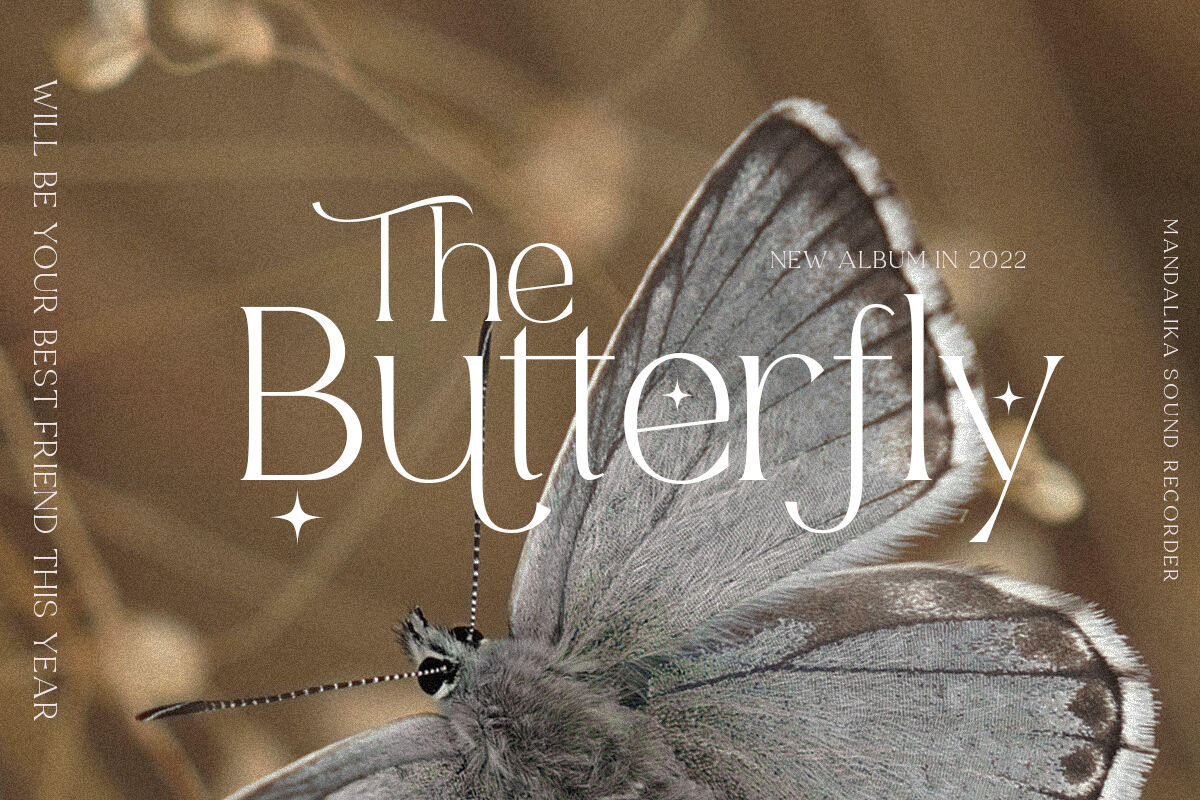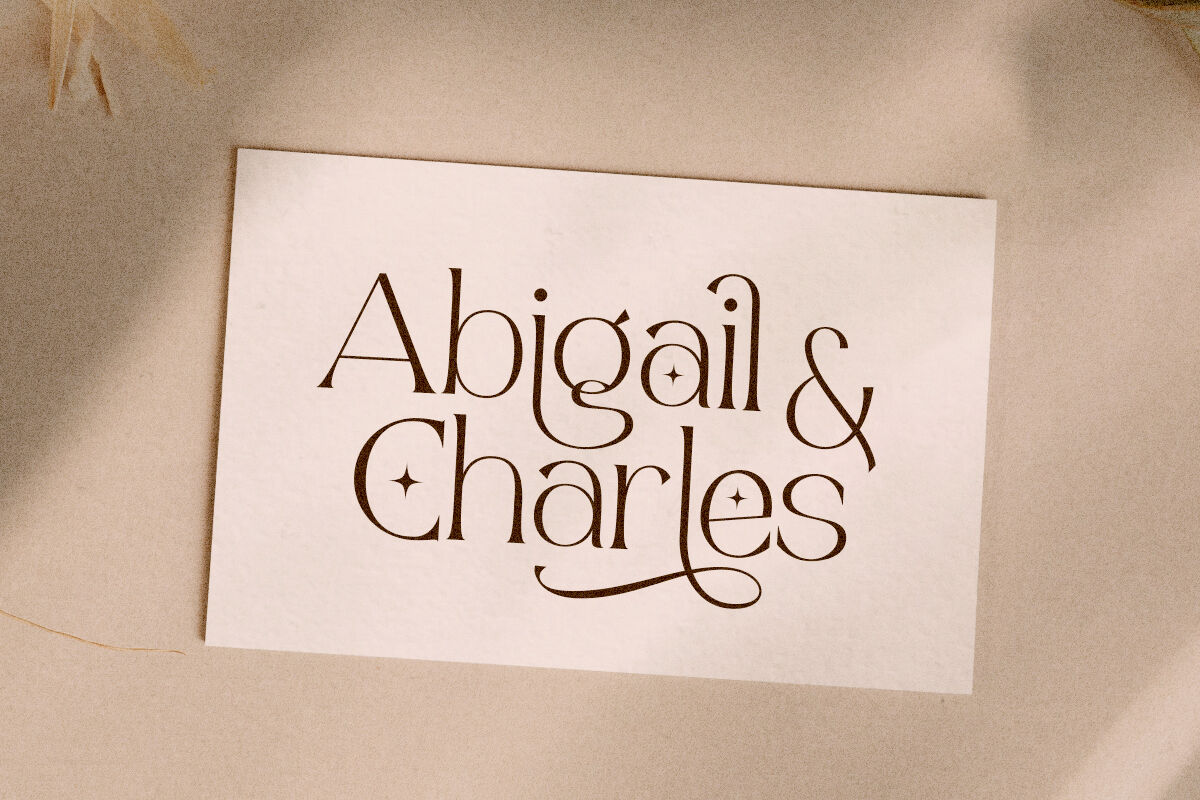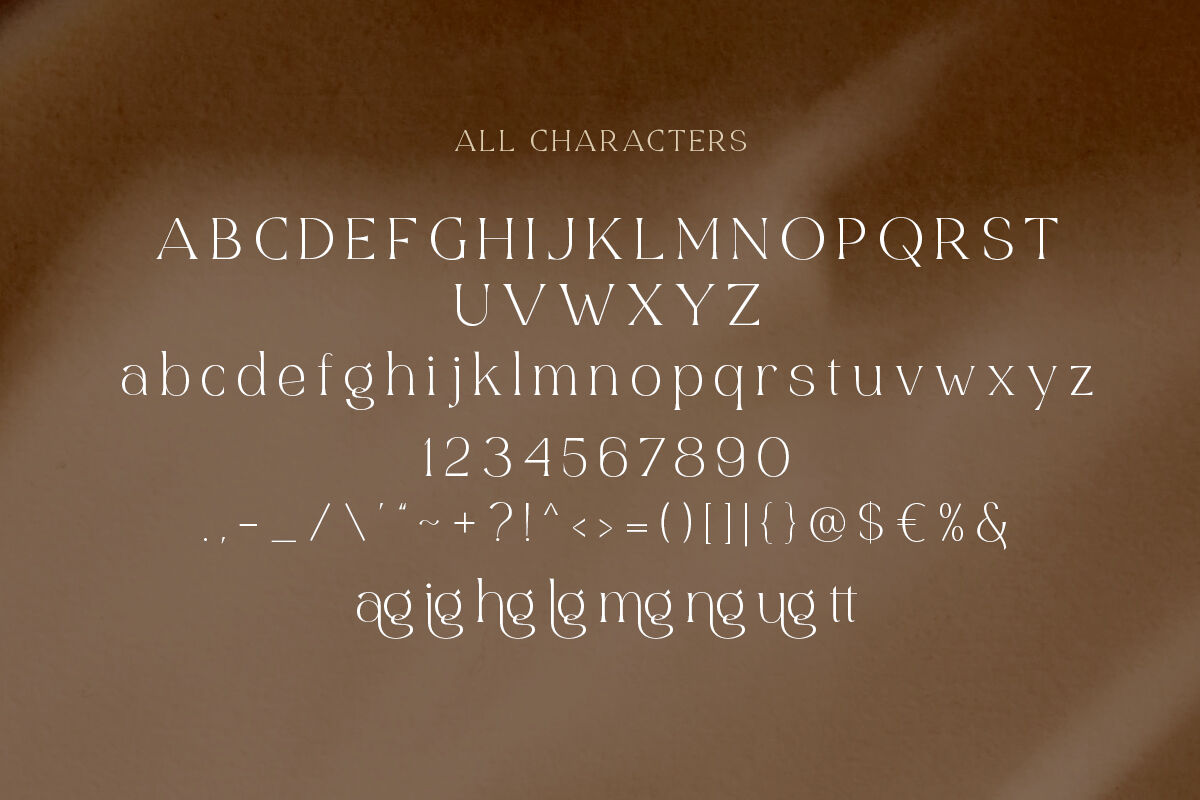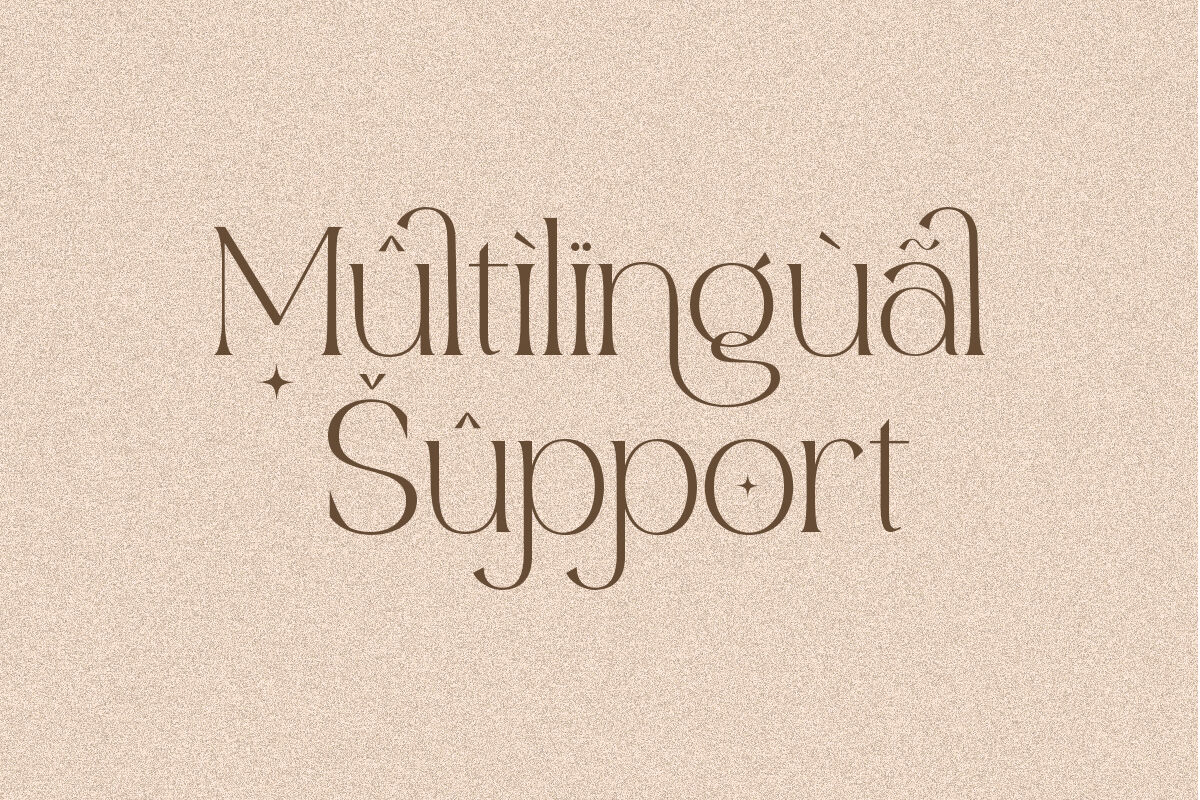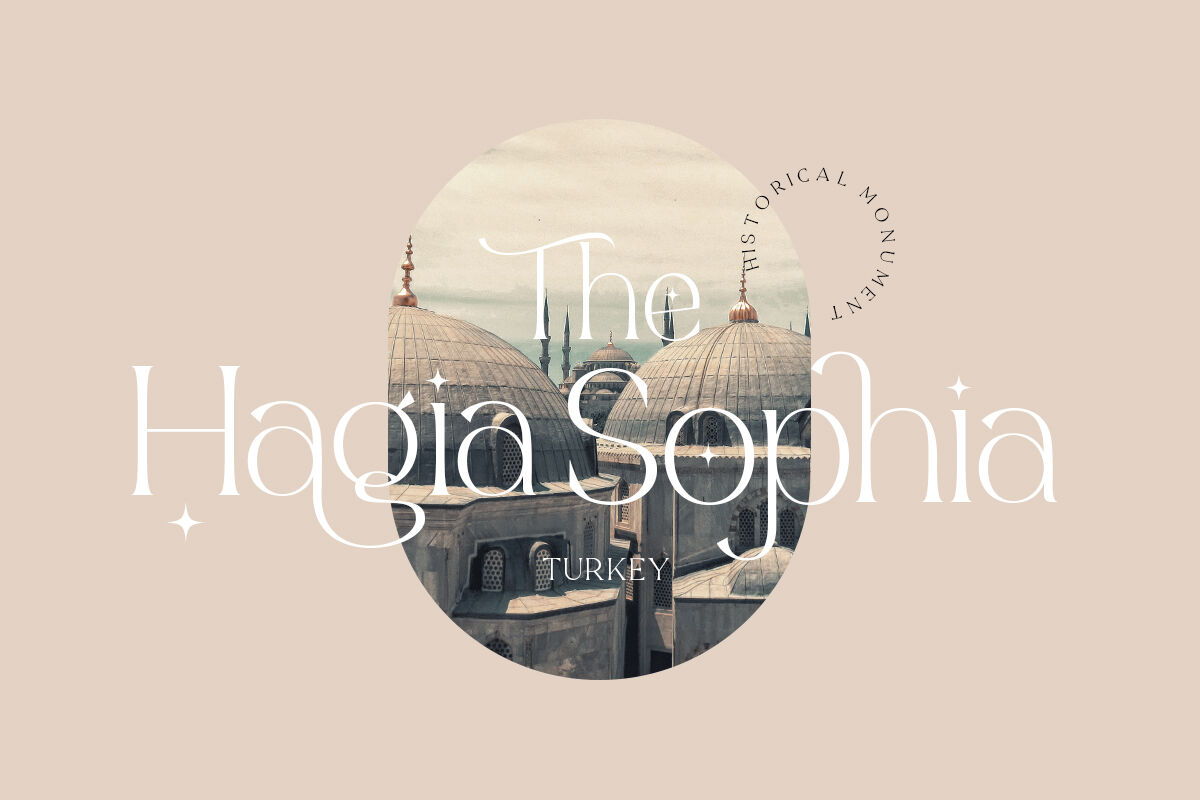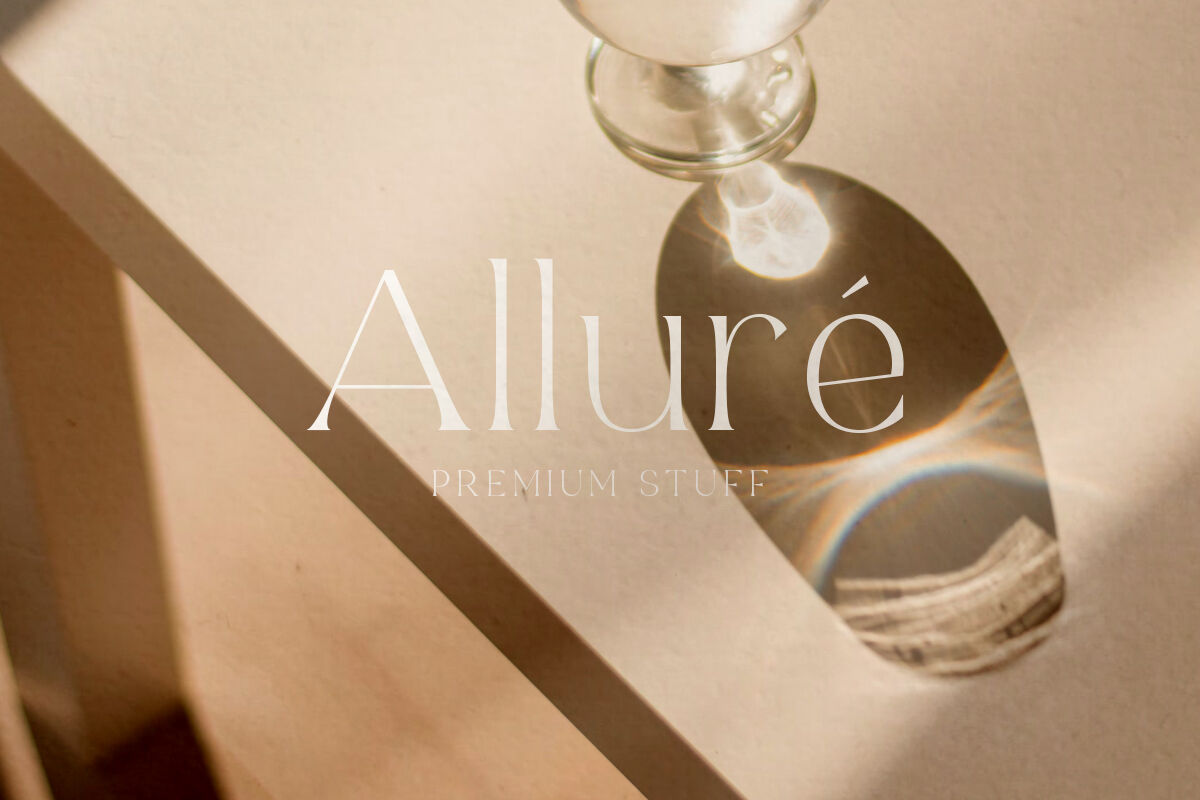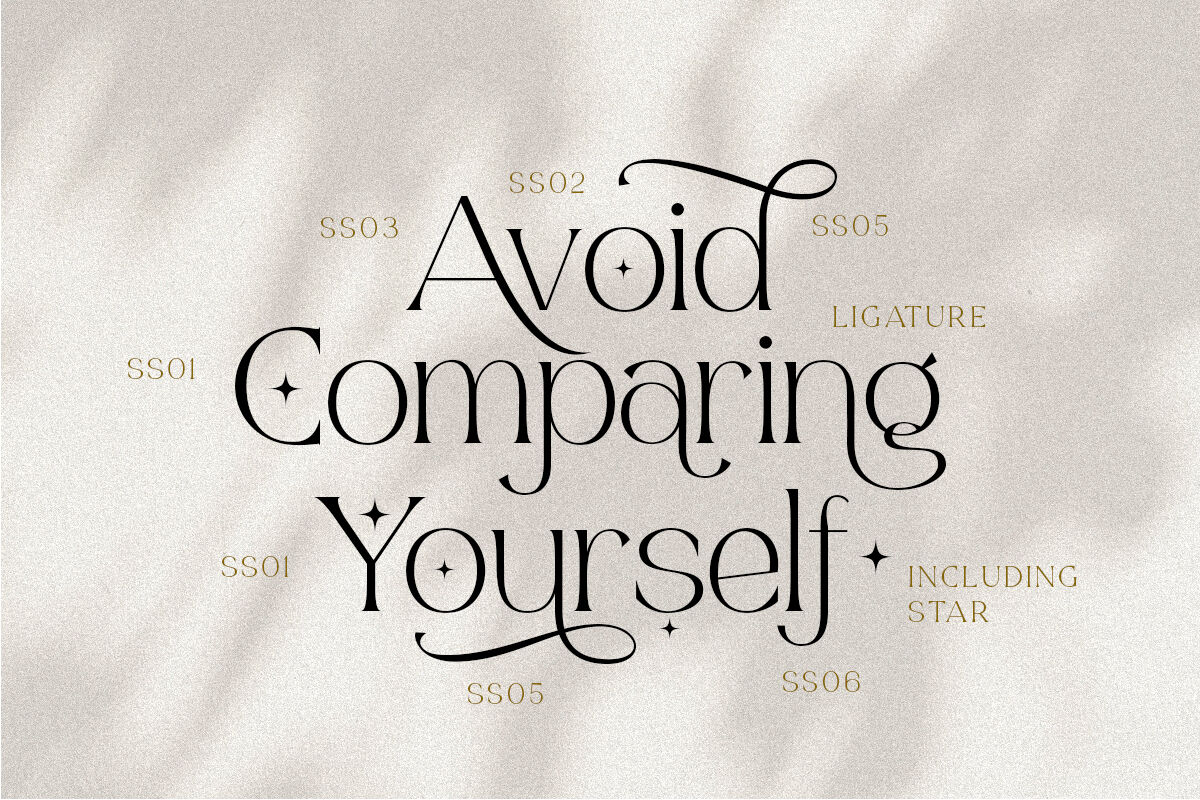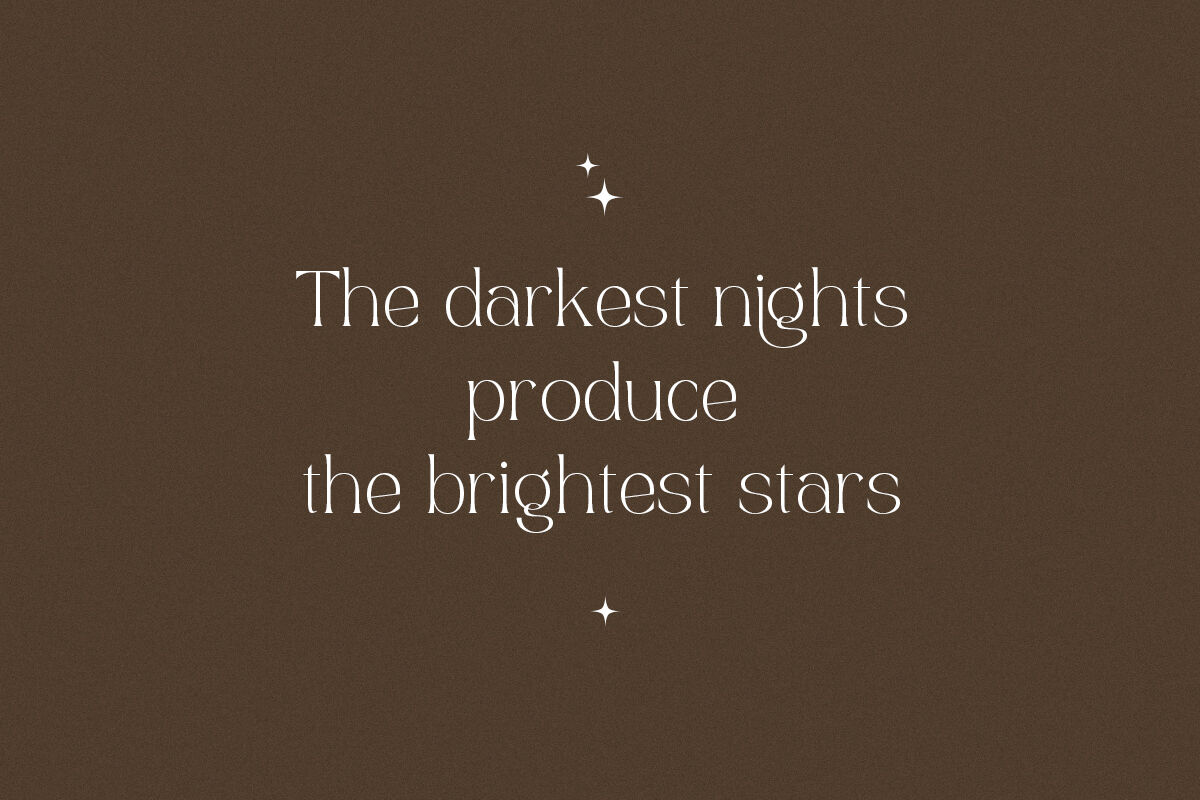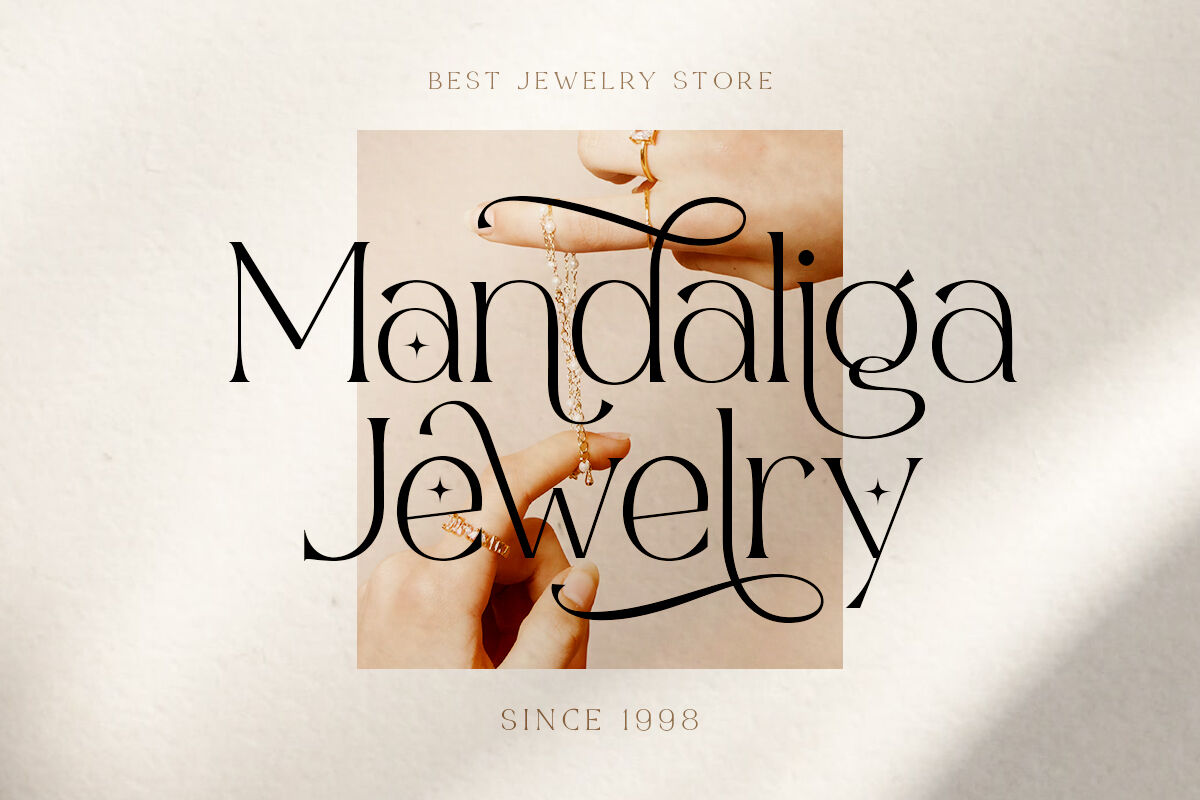
Angelic Bright - Modern Serif Font
Angelic Bright is a modern serif font with unique curves that can make your project looks classy and fantastic! With a bunch of alternates, this font can be used for stunning and memorable design such as quote, invitation, wordmark logos, branding, etc. Also including the star that will make your design even more bright. Angelic Bright support Multi Language and already PUA encoded.